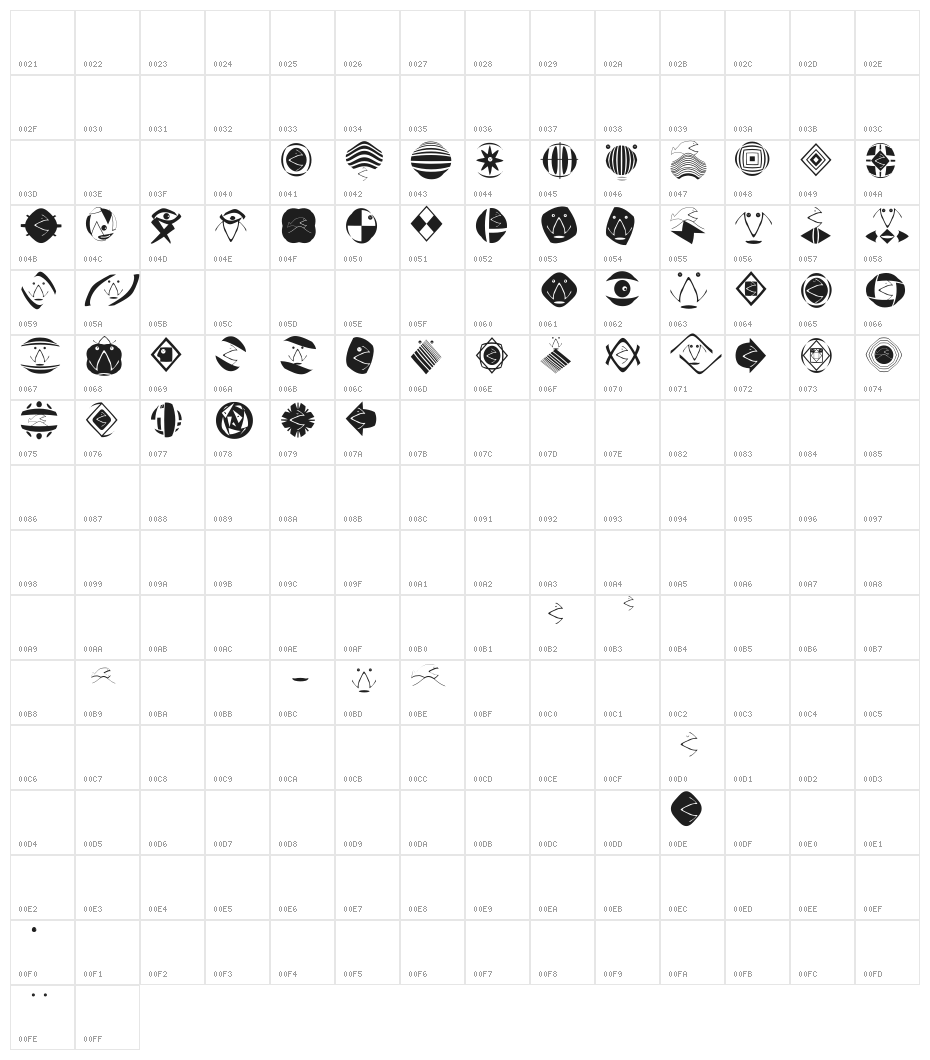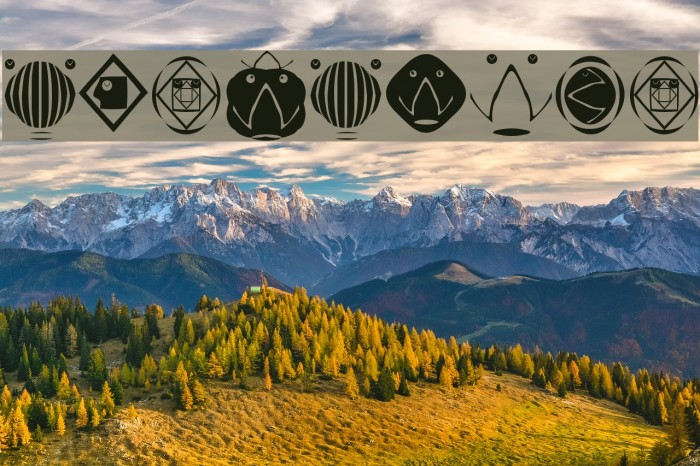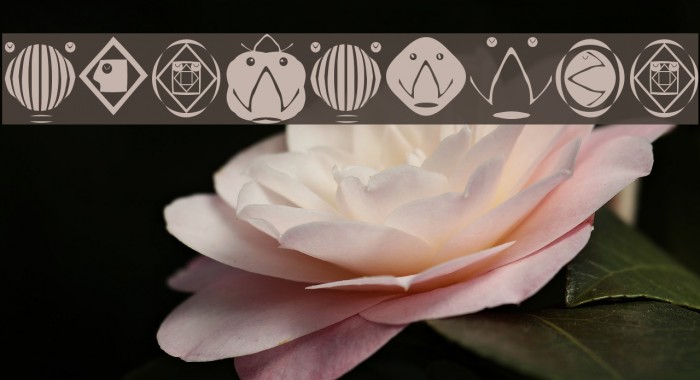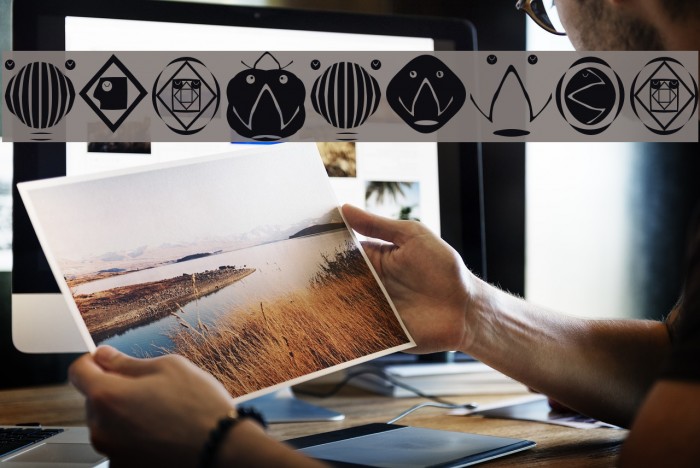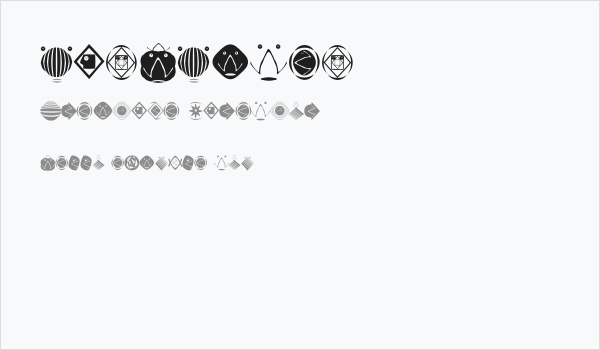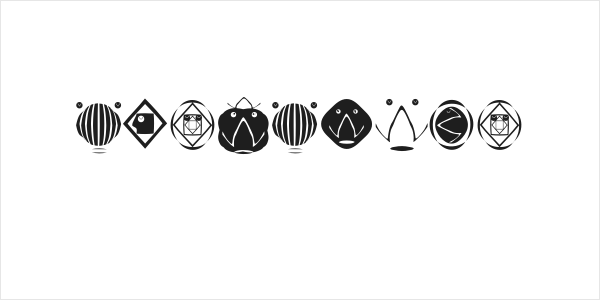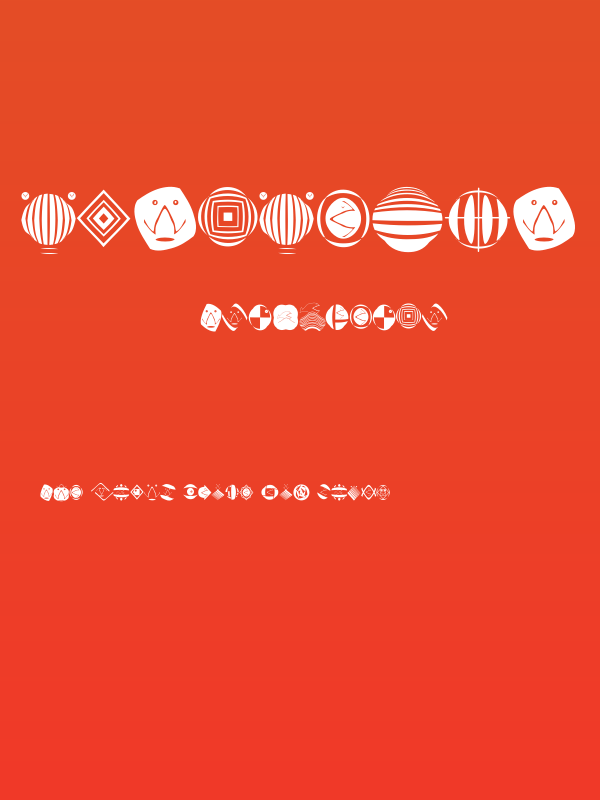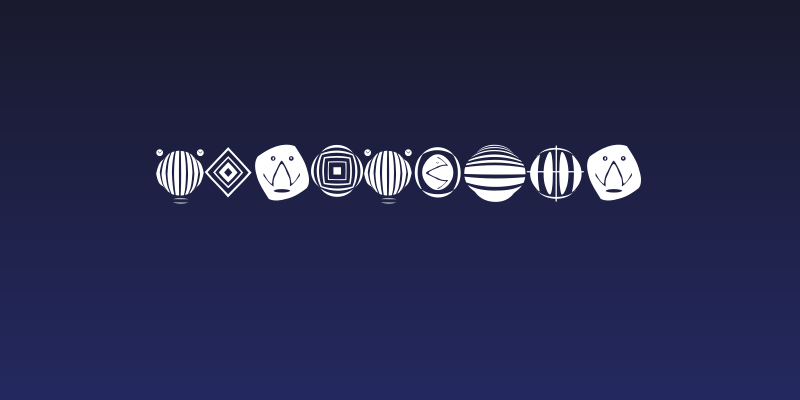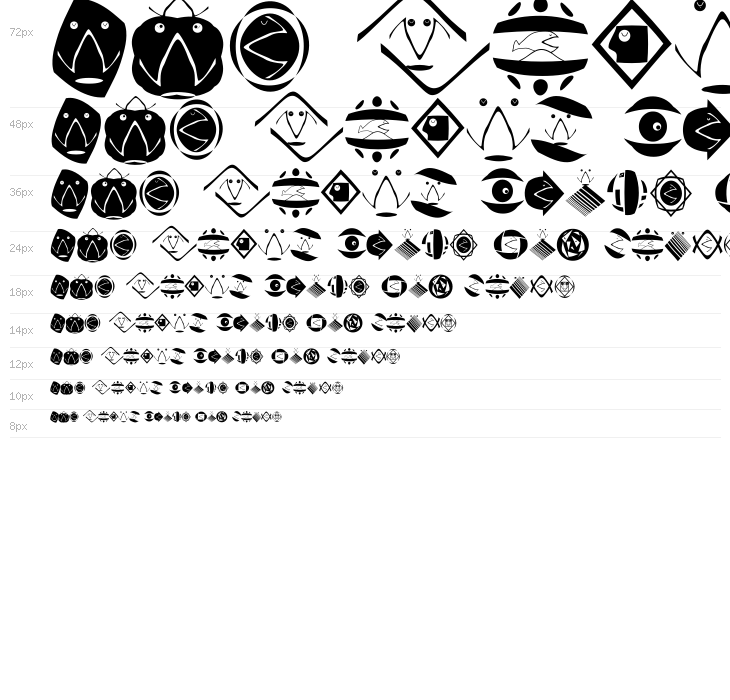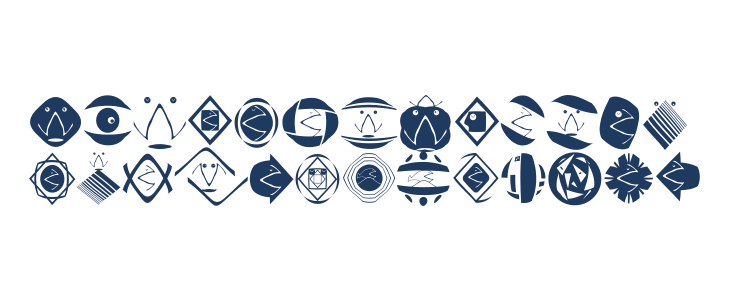
FishFaces Font
FishFaces Description
A highly decorative and abstract font where each character is represented by a unique fish-inspired geometric symbol, combining organic curves with sharp lines and filled shapes, creating a playful and artistic visual language.
| Overall Style | Decorative, Playful, Abstract |
| Use Case | Logos, Posters, Themed Headlines, Creative Projects |
| Proposed Projects | ChildrenΓ’β¬β’s books, aquatic-themed branding, posters, creative event invitations, educational materials, and playful logo designs. |